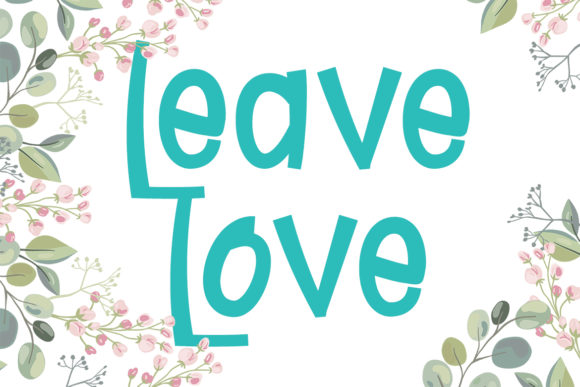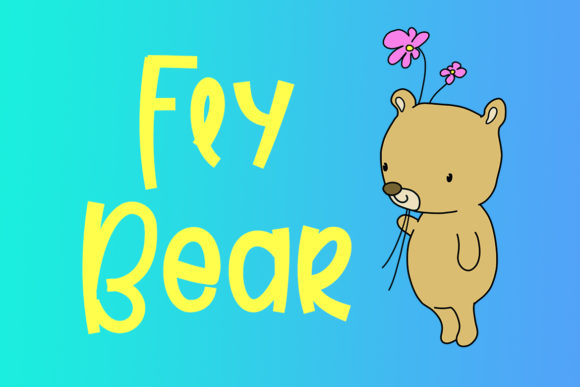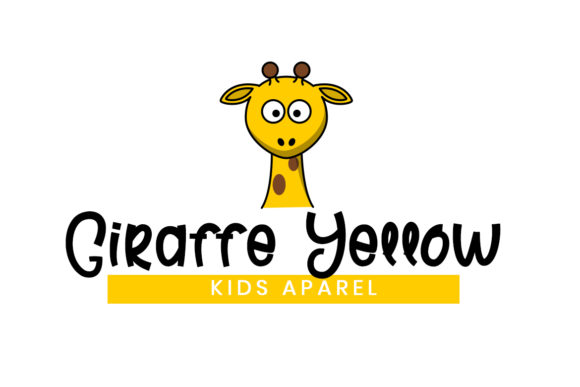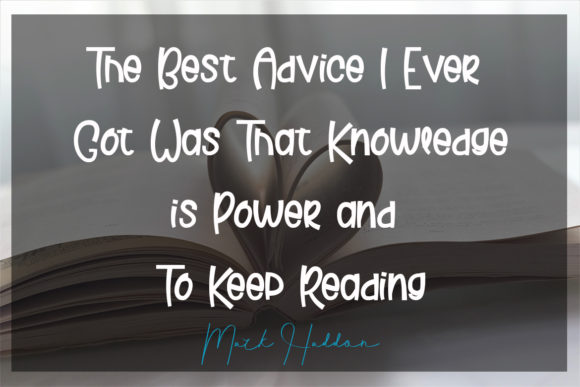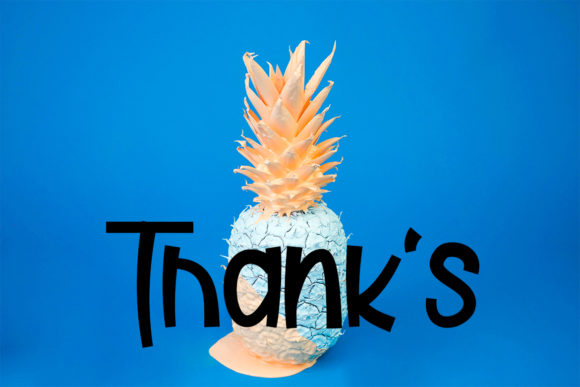
Hello Brother Font
About Hello Brother Font
Hello Brother is a fun and quirky handwritten font. Incredibly playful and bright, this font is ideal for each of your childish or informal designs.